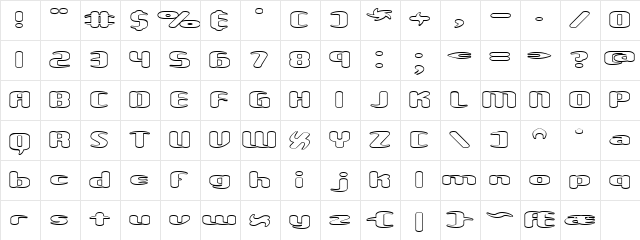
Complete Unexplored Galaxies WO (BRK) Regular glyph index. Displaying only characters natively supported by Unexplored Galaxies WO (BRK) Regular font.
Unexplored Galaxies WO (BRK) is a composed and adaptable typeface that performs quietly and consistently across a wide range of design contexts.